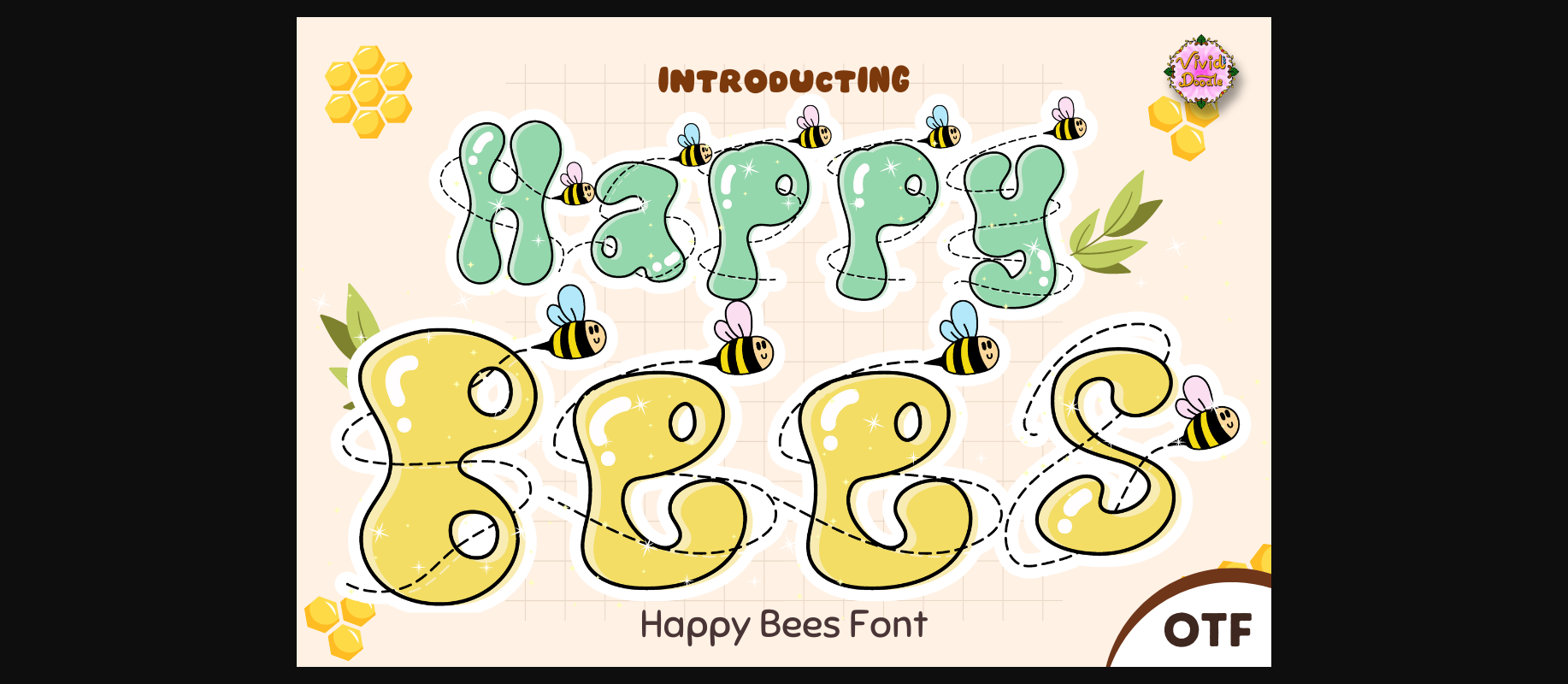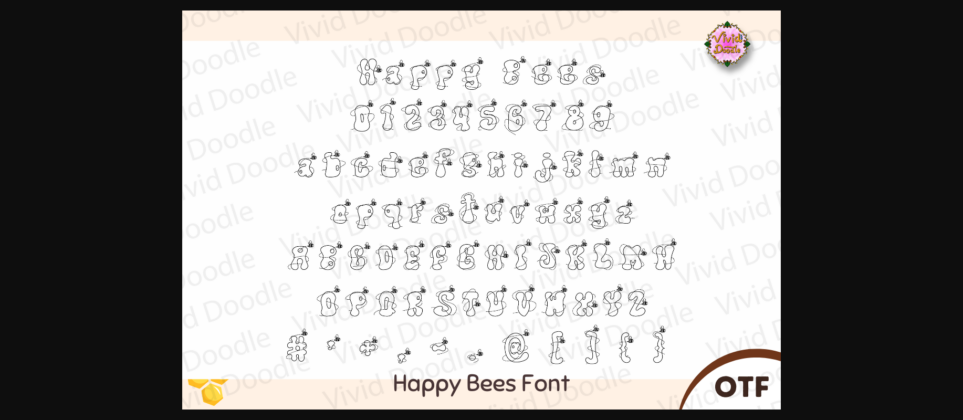
About Happy Bees Font
Introducing the Happy Bees font—a delightful and whimsical typeface perfect for children’s themes, parties, birthdays, and beyond. Each letter is playfully adorned with cheerful bees, adding a touch of joy to your creations. Ideal for T-shirts, bags, wallpapers, crafts, DIY projects, and more, this font seamlessly blends a fun aesthetic with a vibrant and happy design.